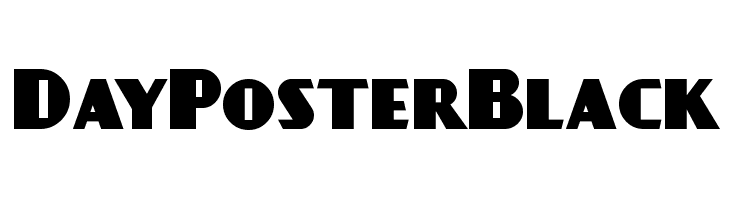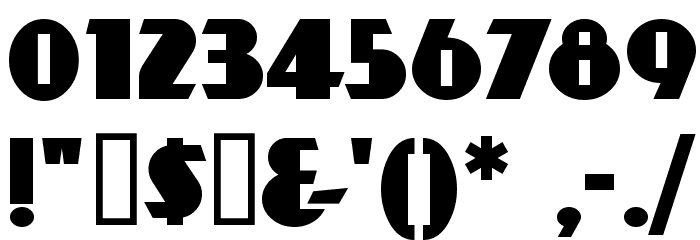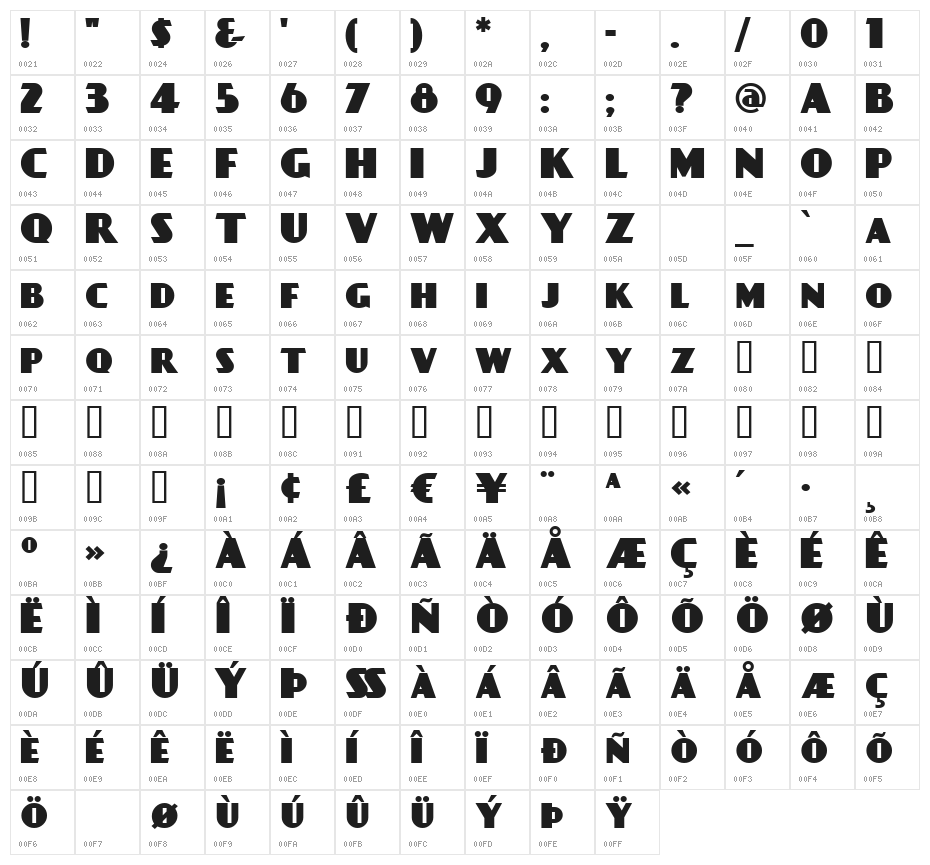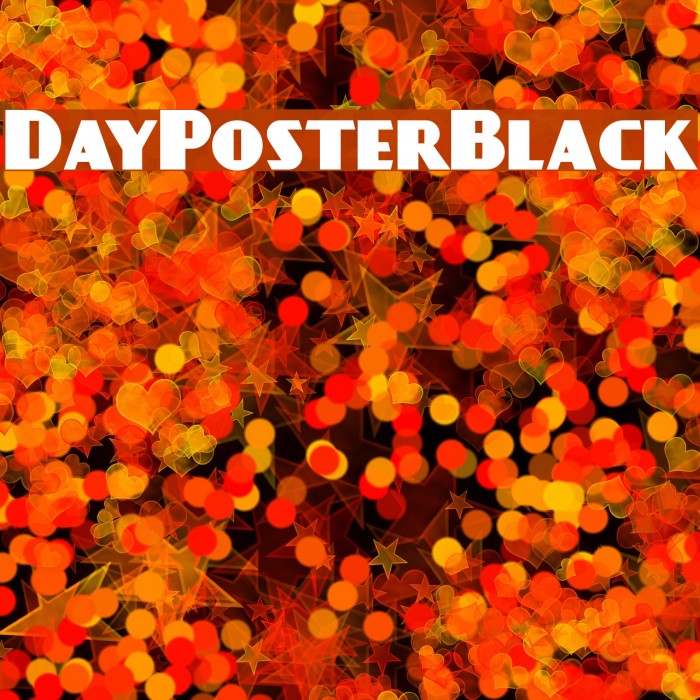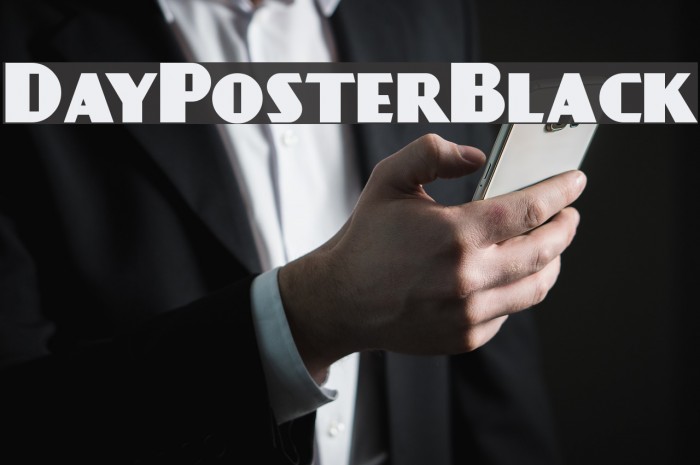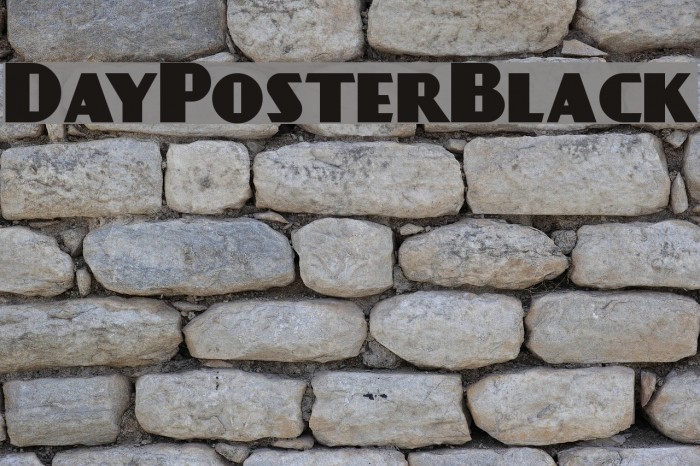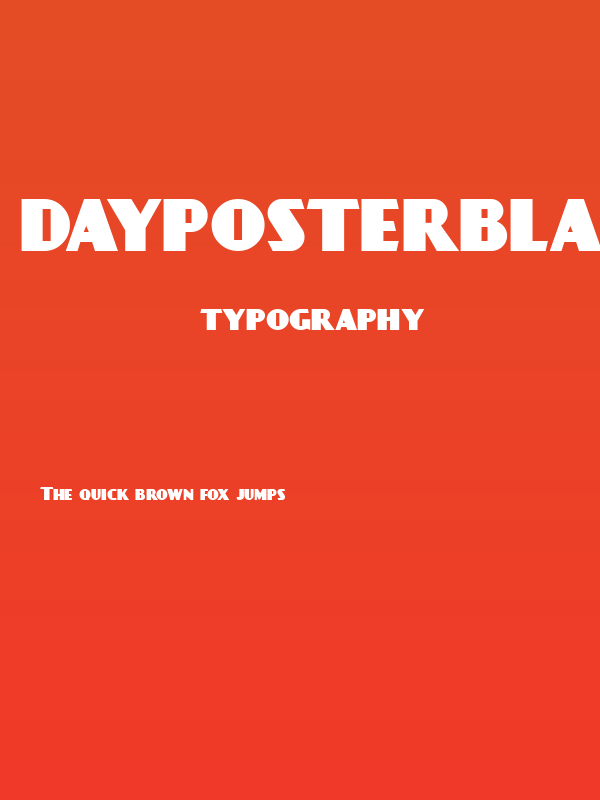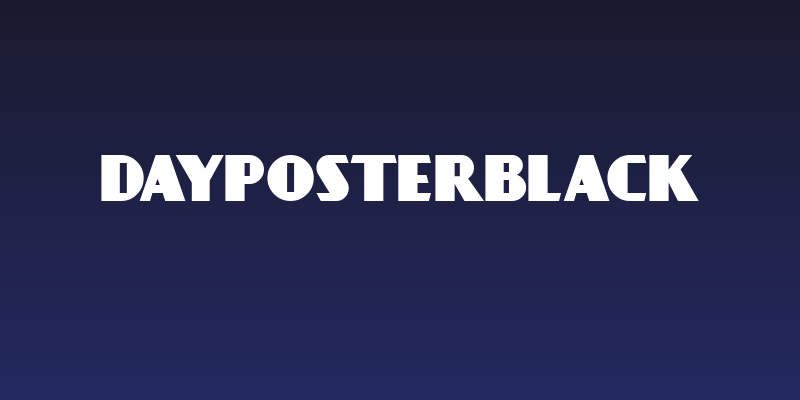
DayPosterBlack Font
DayPosterBlack Description
This font features bold, geometric letterforms with a strong presence, making it ideal for attention-grabbing designs. The characters are constructed with thick strokes and sharp angles, giving them a modern and assertive look. The uppercase and lowercase letters maintain a consistent style, while the numerals and special characters complement the overall bold aesthetic. The font's design is suitable for impactful headlines and statements, ensuring readability and visual interest.
Proposed ProjectsIdeal for posters, advertising, branding, and any project requiring a bold statement.